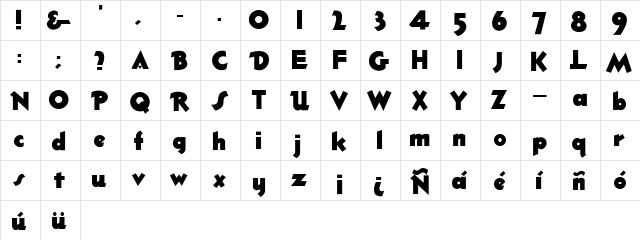
ThickDeco Regular
| Foundry | Mario Arturo |
| Copyright | Once called Go Bananas. Traced form an old lettering book |
Design Context for ThickDeco Typeface
ThickDeco is a composed and adaptable typeface that performs quietly and consistently across a wide range of design contexts.